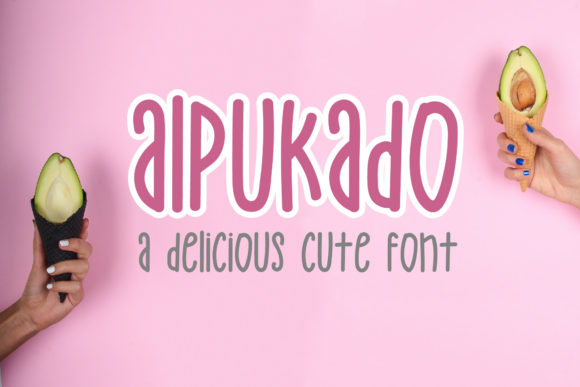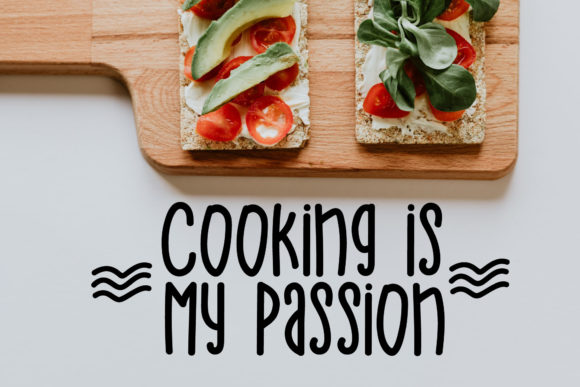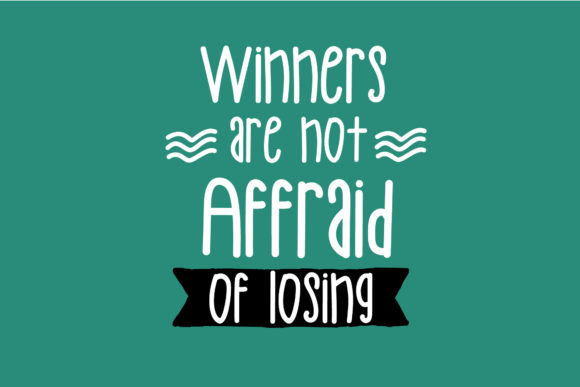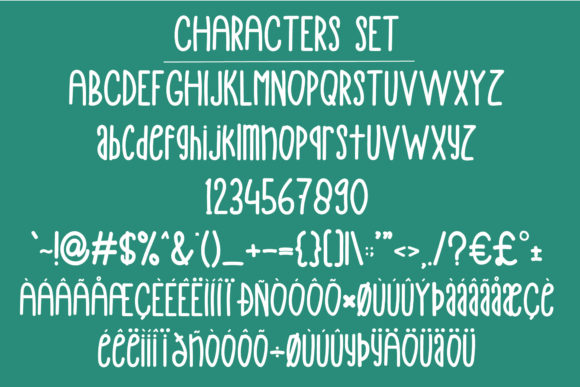
Alpukado Font
About Alpukado Font
Alpukado is a playful and cute handwritten font. Its casual charm makes it appear wonderfully down-to-earth, readable and, ultimately, incredibly versatile.
This versatility will appeal to a wide range of crafty ideas, from letterheads and titles, to stationery.